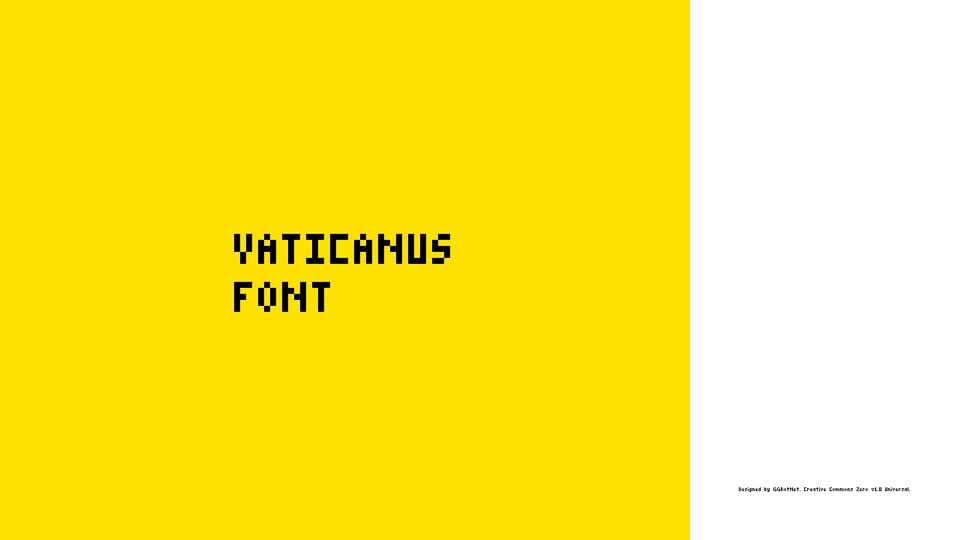
Download Vaticanus font, a charming and minimalist 8-bit pixel typeface designed for retro and digital-inspired projects with its small grid-based letterforms.